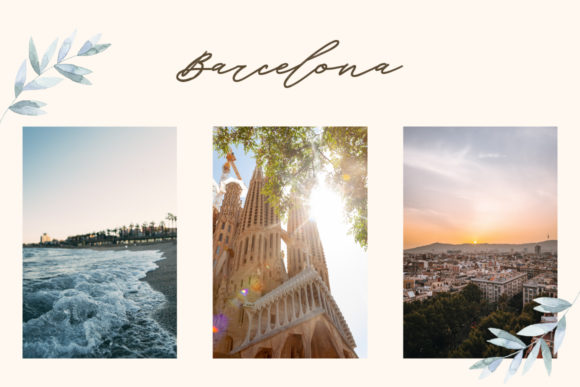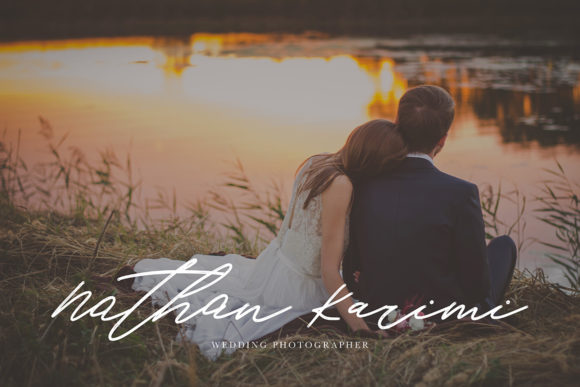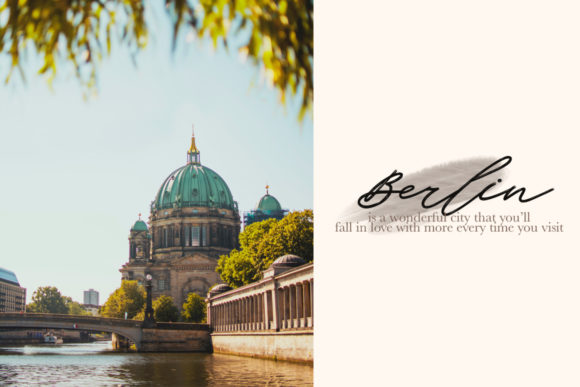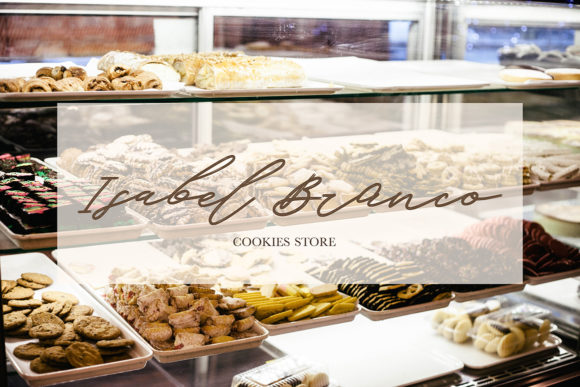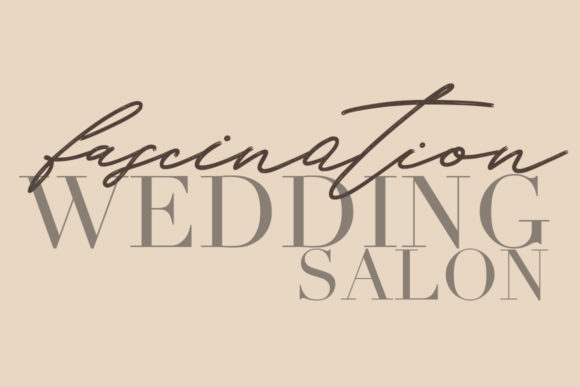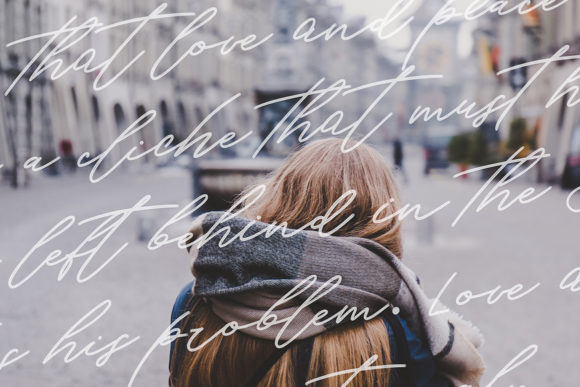
The Designer’s Delight: A Deep Dive into the Bellonda Font
I’ll never forget the time I was working on a branding project for a trendy boutique, and I just couldn’t find the perfect font to capture their elegant yet modern vibe. The client was specific about wanting something that felt luxurious and bespoke. That’s when I stumbled upon the Bellonda font, and it was love at first sight! 💕
Bellonda is a smooth and gorgeous modern font made carefully from real handwriting. Its flowing lines and curves instantly elevated my design, and I knew I had found the perfect fit. In this article, I’ll share my experience with Bellonda, its features, and how to make the most of it in your designs.
An Honest Review of Bellonda
What I Love About Bellonda ✨
- 💫 Smooth and elegant strokes that give it a luxurious feel
- 🎨 Versatile and works well for a variety of design projects, from branding to invitations
- 🔍 Extensive character set, including glyphs and stylistic alternates
- ⚠️ Limited availability of language support (but it’s working on it!)
- 🤔 Some users might find the font too delicate for certain design applications
A Practical Guide to Using Bellonda
Bellonda comes with a range of OpenType features, including stylistic alternates, swashes, and glyphs. These features allow you to customize your text and add a unique touch to your designs. For example, you can use:
- Stylistic alternates to change the look of certain letters or numbers
- Swashes to add decorative flourishes to your text
- Glyphs to access additional characters, such as ligatures or ornaments
The Backstory of Bellonda
Bellonda was designed by a passionate typographer who wanted to create a font that captured the essence of modern luxury. Inspired by the flowing lines of handwriting, the designer carefully crafted each letterform to exude elegance and sophistication. The result is a font that’s both versatile and stunning.
Q: What makes Bellonda unique?
A: Bellonda’s uniqueness lies in its smooth, elegant strokes and extensive character set, making it perfect for designs that require a touch of luxury.
Q: Does Bellonda support OpenType features?
A: Yes, Bellonda comes with a range of OpenType features, including glyphs and stylistic alternates, allowing for extensive customization.